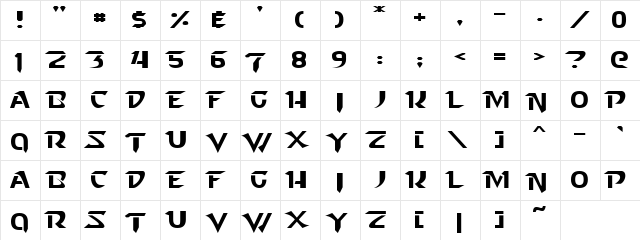
Starcraft Normal
Design Context for Starcraft Typeface
Starcraft is a composed and adaptable typeface that performs quietly and consistently across a wide range of design contexts.